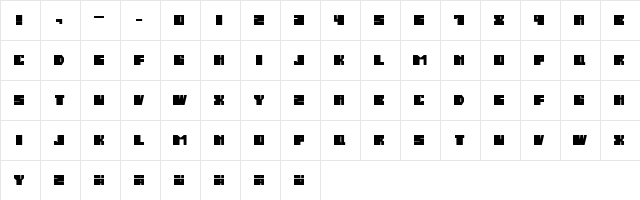
Salmiak Bold Rounded Regular
Design Context for Salmiak Bold Rounded Typeface
Salmiak Bold Rounded softens its letterforms with rounded terminals, giving it an approachable, friendly quality that works well in consumer-facing and digital contexts. The heavy weight commands attention and anchors typographic hierarchies.
A natural fit for tech startups, health and wellness brands, children's products, and friendly consumer apps.
Font Pairing: Pairs well with a rounded or humanist sans for body copy, maintaining the friendly tone without relying on Salmiak Bold Rounded to carry extended reading.
Pro Tip: Pair Salmiak Bold Rounded with a geometric sans for a balanced system — the rounded softness works as a warm counterpoint to harder-edged companions.